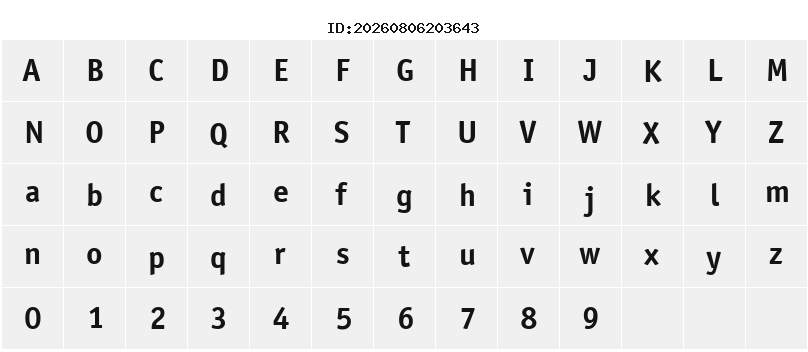
OfficinaSansWinCTT Preview
• Font Name: OfficinaSansWinCTT
• Full Font Name: OfficinaSansWinCTT Bold
About OfficinaSansWinCTT.ttf
OfficinaSansWinCTT.ttf is a modern, elegant sans-serif font designed for ultimate readability and visual harmony. Perfect for branding, headlines, web design, and print materials.